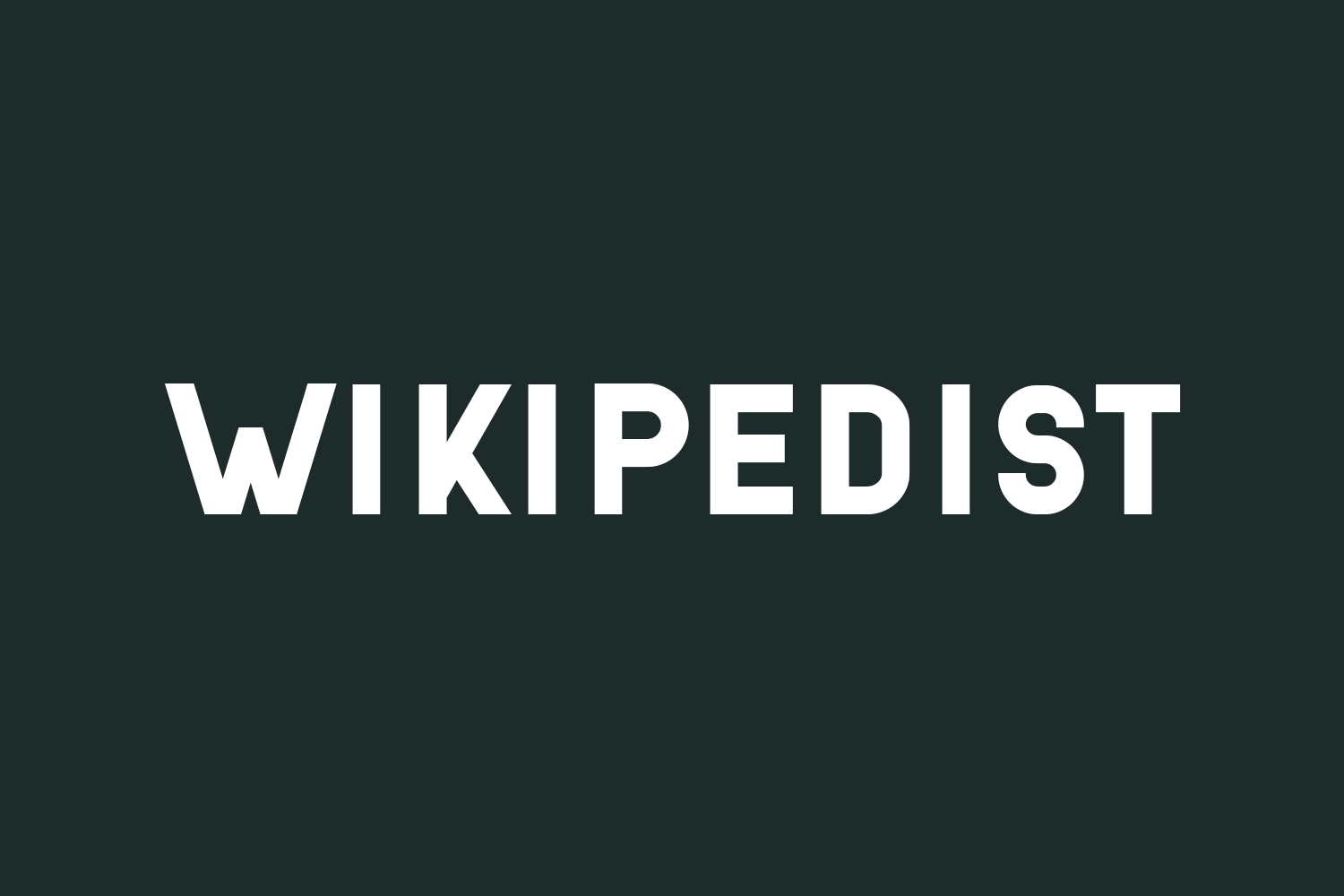
Wikipedist Free Font, an impressive sans serif typeface, adds a touch of elegance to all your designs. Whether it’s for logos, websites, social media, flyers, cards, book titles, or beyond, it’s sure to captivate your audience. Download the font for free if you need it for personal use or purchase the full version for commercial use.
Designed by Vladimir Nikolic